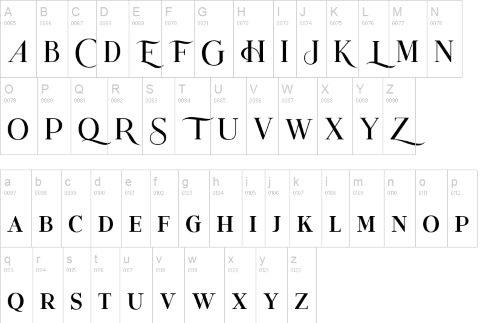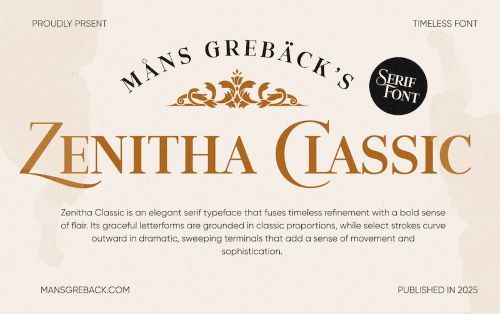
Zenitha Classic Font
Zenitha Classic font
Zenitha Classic Font is an elegant serif typeface inspired by traditional typography and timeless design. With its balanced proportions, refined details, and classic character, it works beautifully for editorial layouts, branding, invitations, and formal titles. Zenitha Classic delivers sophistication, readability, and a graceful vintage touch to any project.
➤ Font Name: Zenitha Classic
➤ Designer: Måns Grebäck
➤ Style: Serif